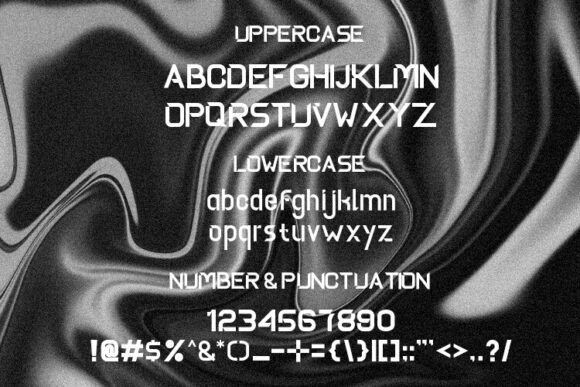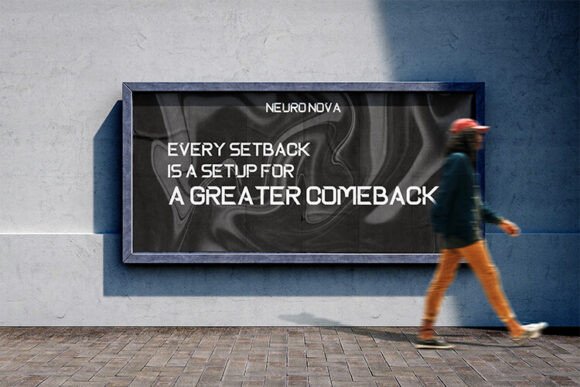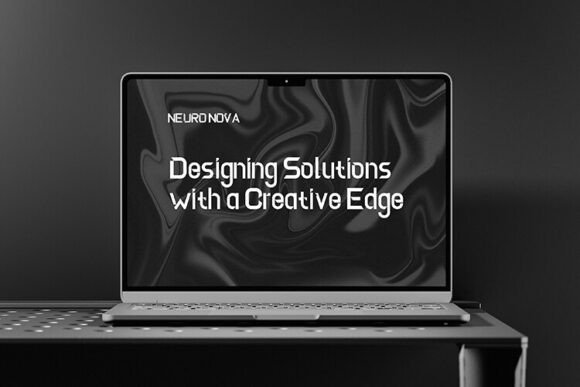
Introduction to Neuronova Font
Have you ever stared at a blank page, trying to find the perfect font to bring your creative vision to life? It’s a moment we’ve all been through, and it’s precisely this struggle that inspired us to create the Neuronova Font – a game-changing sans serif typeface that’s about to revolutionize your design workflow.
As a designer, you know how crucial it is to have a reliable design resource that elevates your creative project to the next level. That’s where the NeuroNova Font comes in – a high-quality, free download that’s designed to make your life easier and your work stand out. With its sleek, understated elegance and prime clarity, this font is the perfect choice for any business-like or contemporary project.
- High-quality design resource ideal for creative projects, offering a unique and futuristic aesthetic.
- Features a clean and modern design, perfect for use in logos, branding, and digital products.
- Includes multiple weights and styles, providing designers with a range of options for their creative project.
Honest Review: Neuronova Font
I recently had the opportunity to work with the Neuronova Font and I must say it’s been a game-changer for my creative projects. This font is a high-quality design resource that brings a unique touch to any project.
- ✨ The font is incredibly versatile and can be used for a wide range of applications, from headings to body text.
- ⚠️ The font may not be suitable for very small text sizes, as it can become difficult to read.
Overall, I’m very impressed with the Neuronova Font and would highly recommend it to designers looking for a high-quality font for their creative projects. Its versatility and ease of use make it a valuable addition to any design arsenal.
The Neuronova Font is a high-quality design resource ideal for creative projects. Its unique style and transparent background make it a versatile choice for various applications.